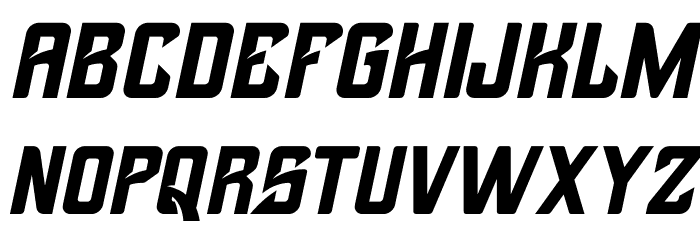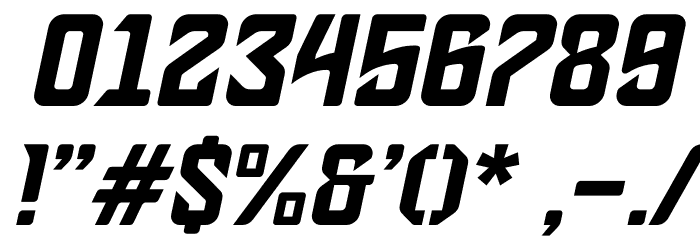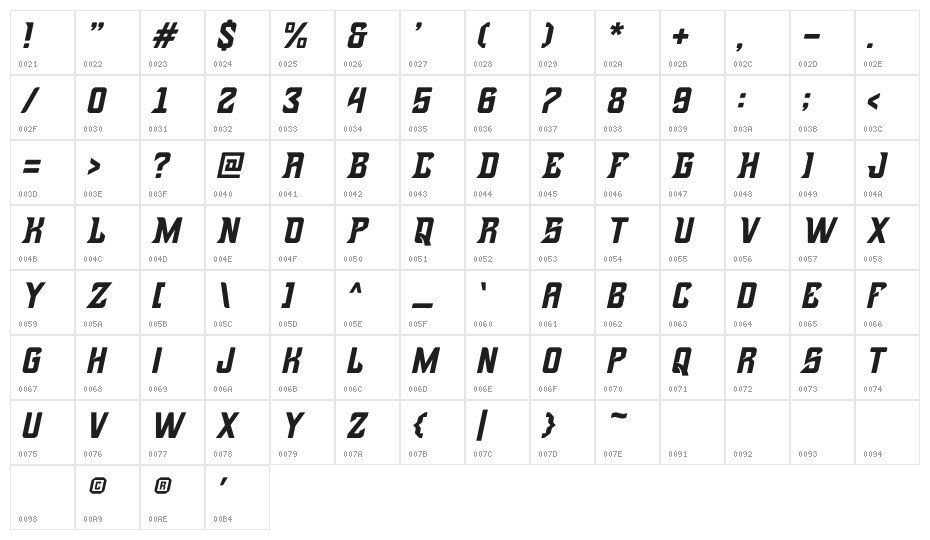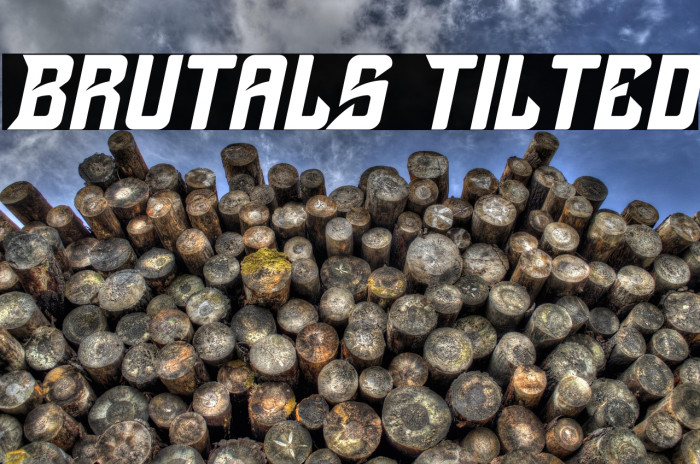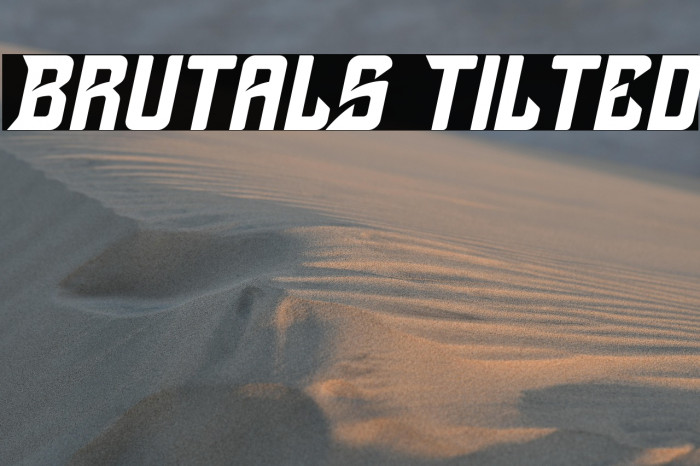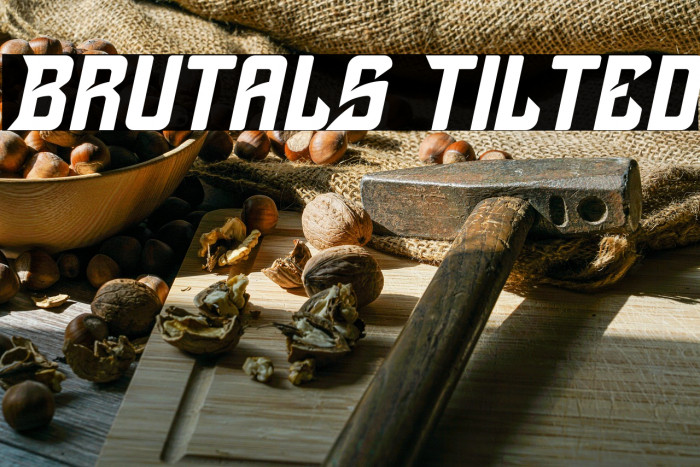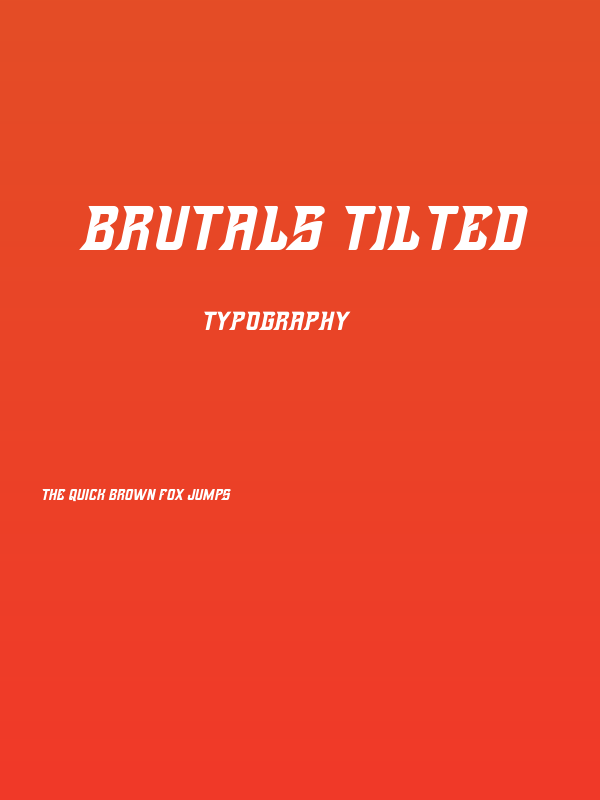
Brutals Tilted Font
This font features a bold and dynamic style with a distinct slant, giving it a sense of motion and energy. The characters are robust and angular, with sharp edges and a strong presence. The uppercase and lowercase letters maintain a consistent style, with the uppercase being particularly striking. Numbers and special characters are designed to match the boldness of the alphabet, ensuring a cohesive look across all text. The font's unique style makes it suitable for projects that require a strong visual impact.
A bold, slanted font with angular characters and strong visual impact.
- Proposed Projects: Ideal for sports branding, action movie posters, dynamic logos, and edgy apparel designs.